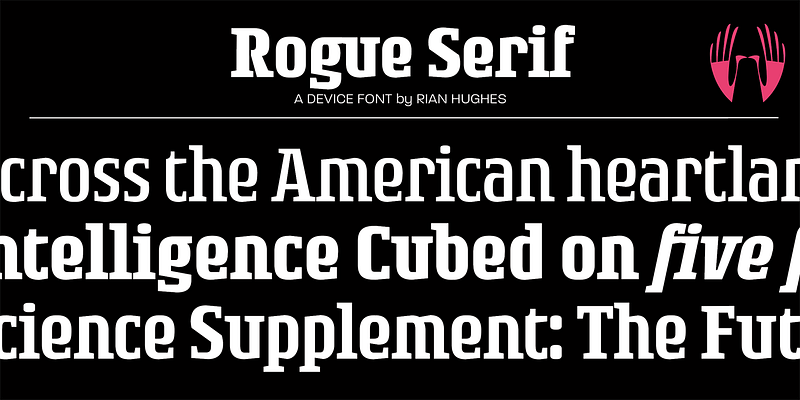
Rogue Serif specimen
Rogue Serif
A serif companion to Rogue Sans. A versatile modern clean square serif. Sturdy, masculine, corporate – futuristic and exciting.